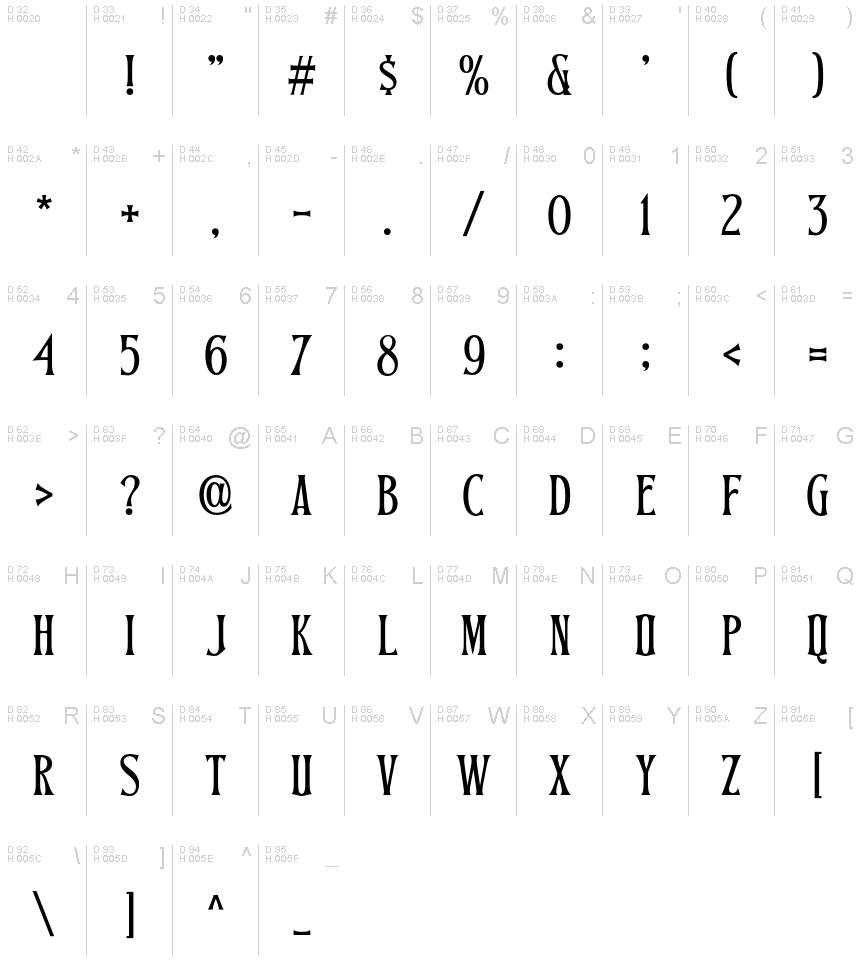
TheGarlandDemo
The Garland font by Letterhend Studio is a refined display typeface with retro vibes that stand out. The condensed serif font comes with relatively bold characters, and a high elegant contrast combining elegance and modernism. It’s neither too traditional nor too contemporary allowing it to claim its ground as a perfectly balanced choice for your next design project.